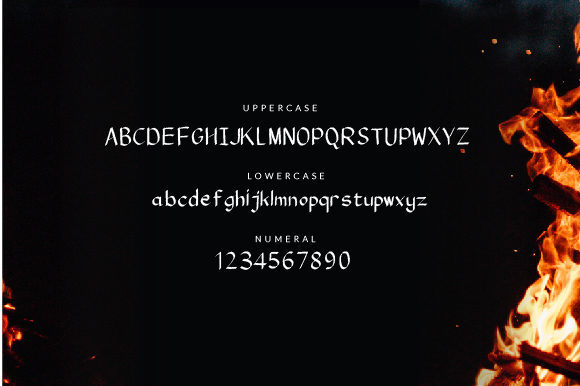
The Perfect Blend of Simplicity and Style: Areea Font
As a designer, have you ever found yourself stuck in a creative rut, searching for the perfect font to elevate your project? You’re not alone. We’ve all been there, pouring over font libraries, trying to find that one special something that makes our designs pop. And then, it hits you – a font so clean, so friendly, and so versatile that it becomes the foundation of your entire design. This is where Areea Font comes in, a simple and neat lettered display font that’s about to become your new go-to.
With Areea Font, you’ll discover a world of possibilities. Its friendly style makes it incredibly versatile, fitting a wide range of designs, from elegant invitations to playful advertisements. Whether you’re a seasoned designer or just starting out, Areea Font is a valuable addition to your toolkit, helping you create designs that truly stand out. So why settle for a font that’s just okay when you can have one that’s truly exceptional? Try Areea Font today and take your designs to the next level.
Areea Font Key Features
- Font Style: Areea Font is a sans-serif font, ideal for digital interfaces and modern designs.
- Unique Characteristics: Areea Font features a clean and minimalist design, making it perfect for modern and sleek interfaces.
Areea Font Review
I’ve had the chance to work with Areea Font, and here’s my honest review:
- Legibility: Areea Font is incredibly legible, making it perfect for body text and long passages of content.
- Neutrality: The font’s neutral design makes it suitable for a wide range of applications, from corporate to creative projects.
- Elegance: Areea Font has a clean and elegant aesthetic that adds sophistication to any design.
- Lack of Personality: While Areea Font is neutral, it may not be the best choice for projects that require a bold or statement-making font.
- Limited Character Set: The font’s character set may not be as extensive as other fonts, which could be a limitation for designers who need to work with non-Latin scripts.
Areea Font is a solid choice for designers who need a clean and legible font for body text. While it may not be the most exciting or statement-making font, it’s a reliable and versatile option that’s sure to please. If you’re looking for a font that won’t distract from your content, Areea Font is definitely worth considering.
The Areea Font is commonly used in a variety of design projects, including logos, business cards, and marketing materials. Its unique style and versatility make it a popular choice for designers and creatives.
Alternatives to Areea Font
The Inter Font is a sans-serif typeface designed by Rasmus Andersson. It is a clean and modern font that works well for digital products and interfaces. It is suitable for use in headings, titles, and body text. Inter Font is a great alternative to Areea Font as it provides a similar modern and minimalist look, but with a more open and airy feel.
Public Sans Font
The Public Sans Font is a modern sans-serif typeface designed by Caroline Hadilaksono and Raj Jayaseelan. It is a highly legible font that is suitable for use in body text and is designed to work well in a variety of contexts. Public Sans Font is a great alternative to Areea Font as it provides a similar clean and modern look, but with a more robust and durable feel.